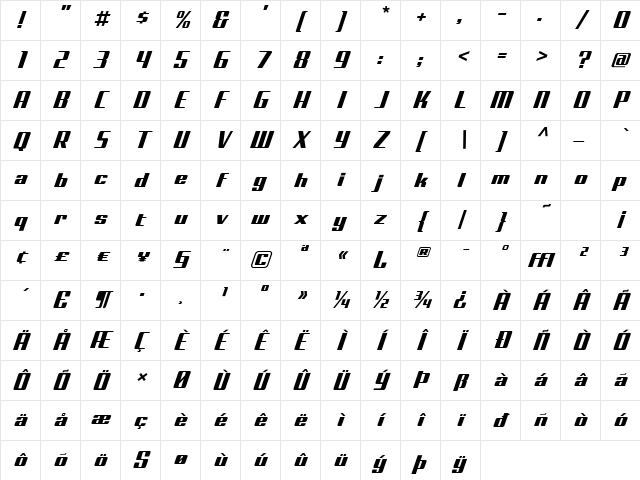
Complete Global Medium glyph index. Displaying only characters natively supported by Global Medium font.
Global is a composed and adaptable typeface that performs quietly and consistently across a wide range of design contexts.